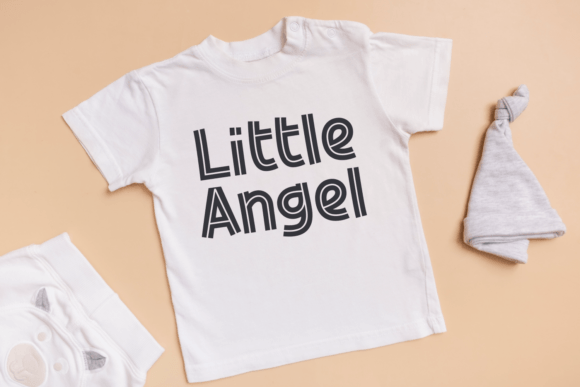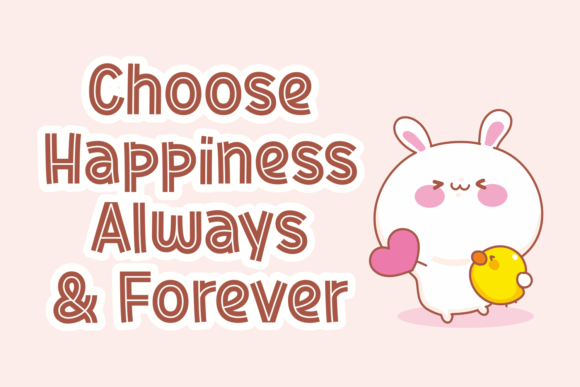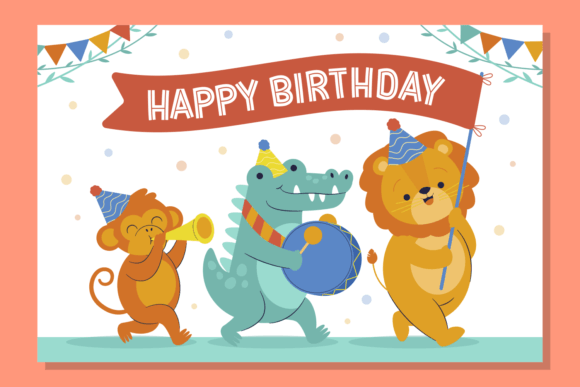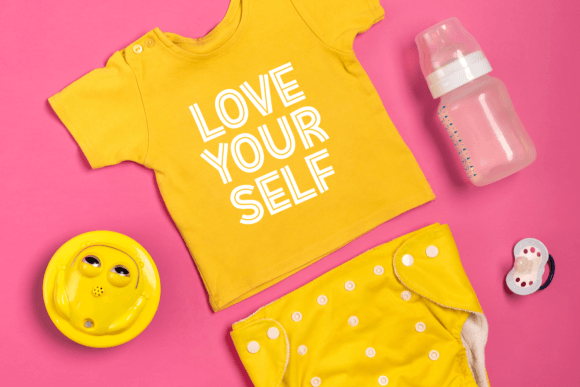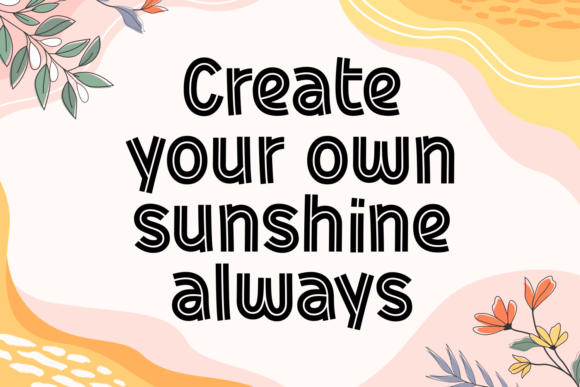
Introduction to Hippie Hoppa Font
Hippie Hoppa is a sweet and playful display font that adds a touch of whimsy to your projects.
With its cute and friendly characters, this font is perfect for creating a fun and inviting atmosphere Whether youโ€™re working on greeting cards, posters, or any design that needs a dose of charm, Hippie Hoppa brings a delightful flair to your text.